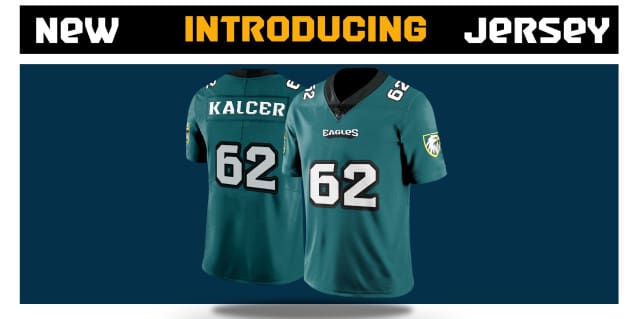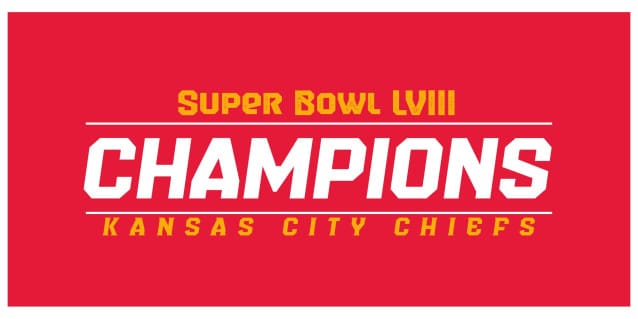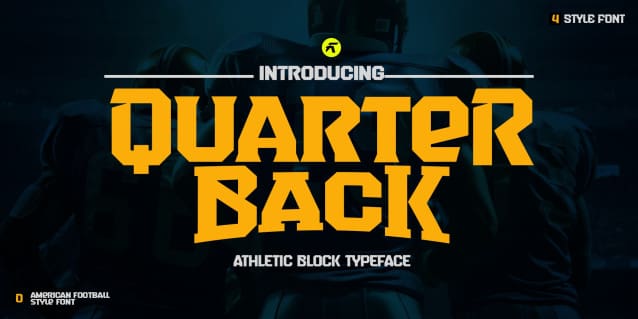
Quarterback Font
Quarterback Font is a fearless athletic font family with seven creative styles for added flexibility and variation. It’s perfect for sports logos, branding, posters, apparel design with it’s bold and confident appearance. The upper- and lowercase vintage characters comes with different renders to add authenticity and a more natural worn look.